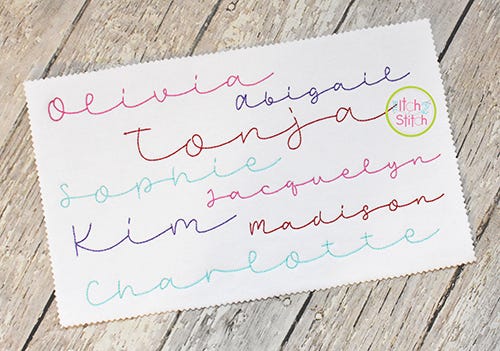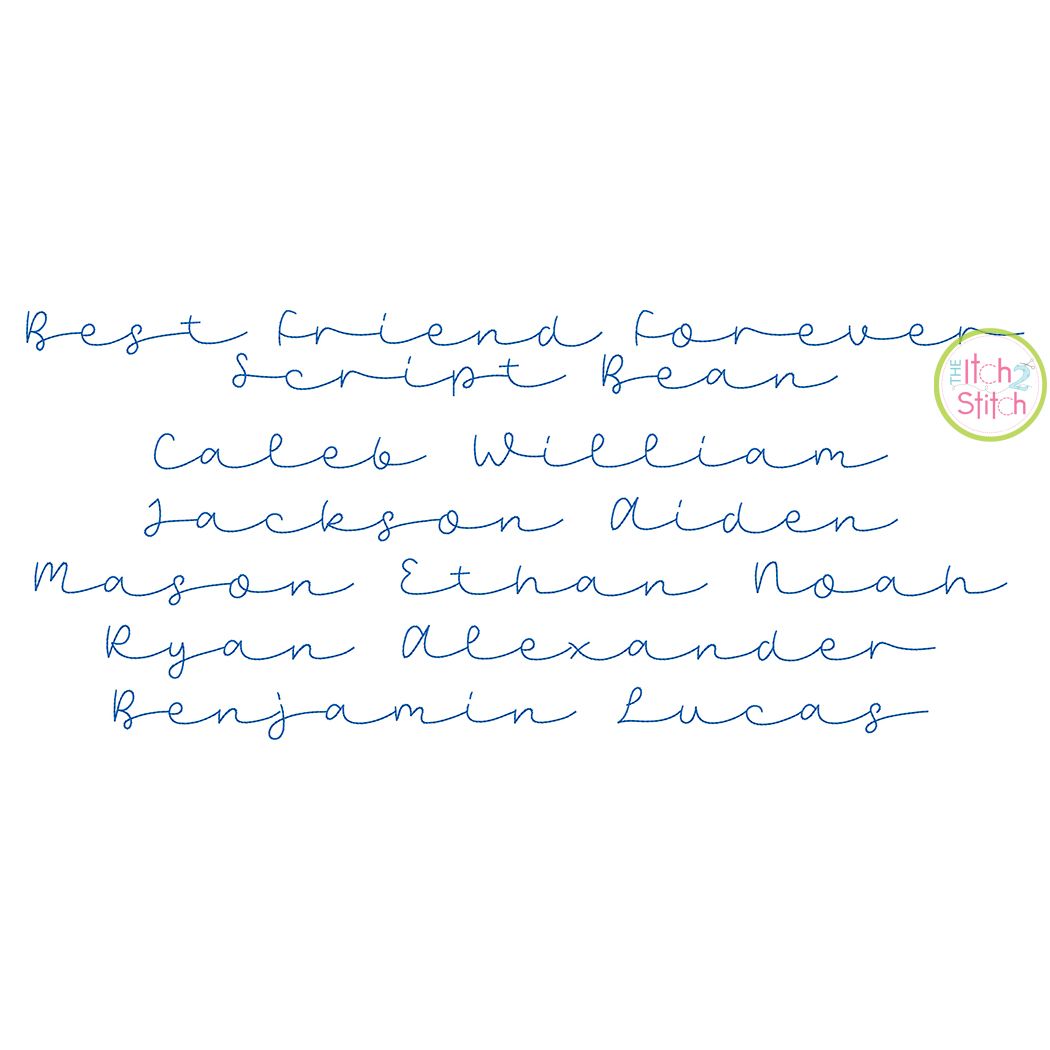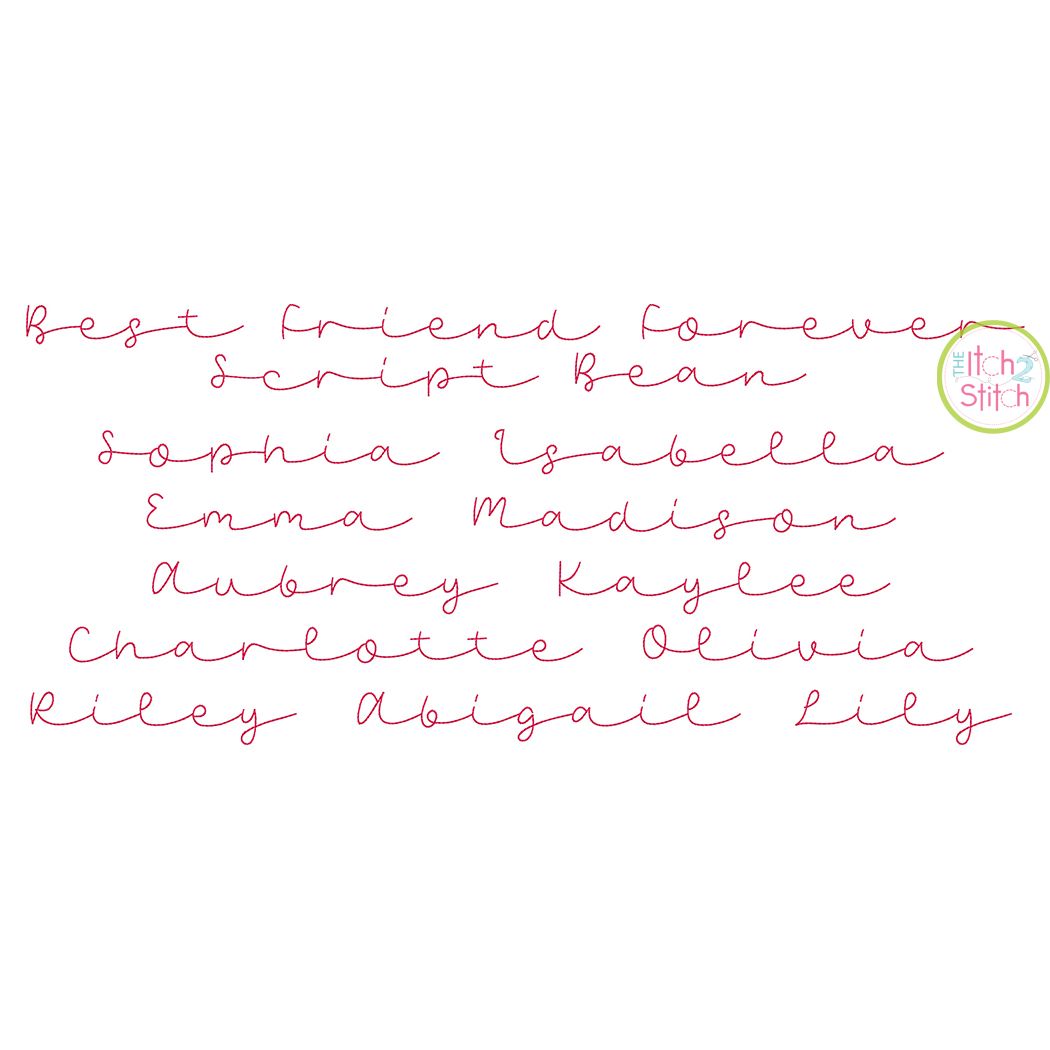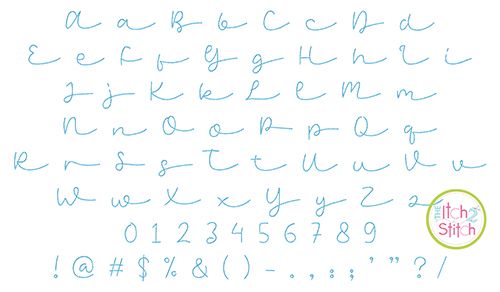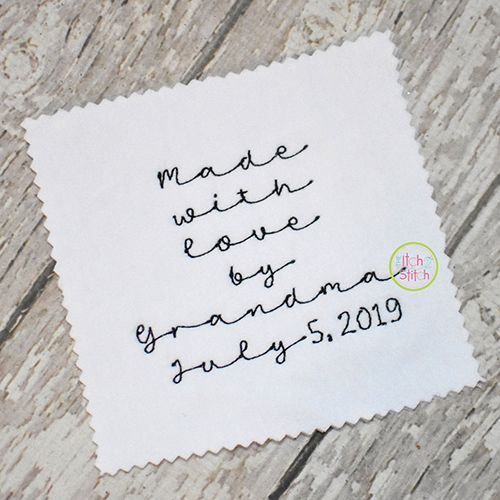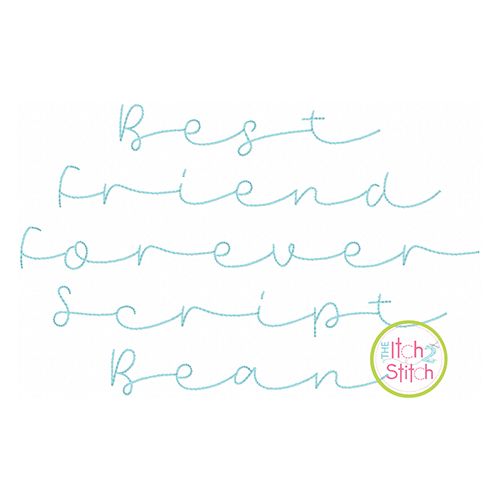
Best Friend Forever Script Bean Stitch Embroidery Font
The size of the font is based on the height of the capital A, all other letters are scaled to match. Please note the letters in this font are very wide; they average twice as wide as the stated size. For example, the letters of the 0.5" size are about 1" wide each, so a five letter word would measure about 5" wide.
This is a five-pass* backstitch font originally designed to stitch on fabric, not card stock.
*The two smallest sizes only have three passes of stitches.